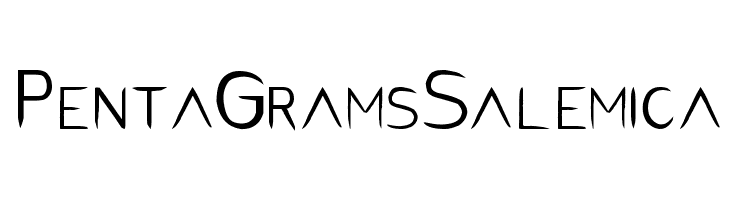
( Xerographer Fonts - Max Infeld - xerographer.blogspot.com )
A geometric, hollow font with angular and bold outlines.
( Xerographer Fonts - Max Infeld - xerographer.blogspot.com )
A geometric, linear font with thin, angular strokes and a minimalist design.
A bold, textured font with a hand-drawn, vintage look.
( LJ Design Studios - www.ljdesignstudios.com )
A bold, angular font with a distressed, deformed style.
( FULL MOON Design House™ - Penta Gram - en.fmdh.rs )
An artistic, angular font with a gothic flair, perfect for dramatic designs.
( Axel Lymphos )
A bold, geometric font ideal for impactful headlines and logos.
A bold, geometric font with strong, block-like letterforms.
Bold, italic font with angular cuts and a dynamic style.